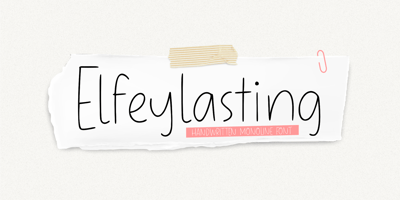
Elfeylasting
Elfeylasting font
Elfeylasting Font Family was designed by Fachrizal Yusuf and published by Allouse Studio. Elfeylasting contains 1 styles and family package options. Proudly Presenting, Elfeylasting A Handwrittten Thin Font.Elfeylasting is perfect for any titles, logo, product packaging, branding project, megazine, social media, wedding, or just used to express words above the background.Elfeylasting also come with Multi-Lingual Support.Enjoy the font, feel free to comment or feedback, send me PM or email. Thank You!